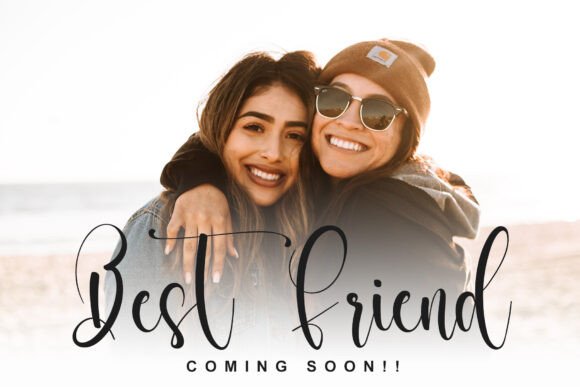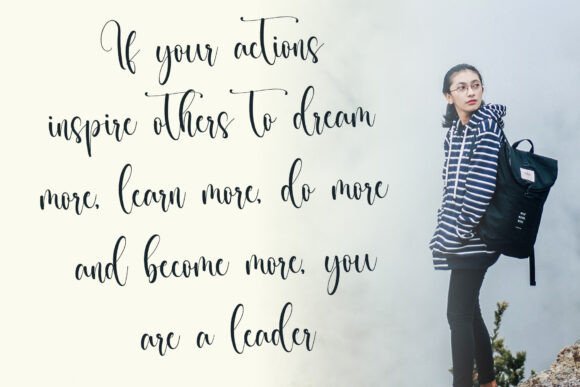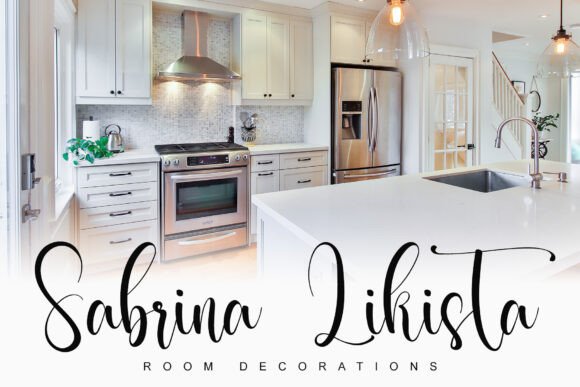
Brittany Writing Font
Brittany Writing is a font that exudes class, combining the beauty of script handwriting with a bold and timeless vintage touch. With its fluid strokes, graceful curves, and dynamic flow, this font is perfect for creating a sophisticated yet powerful impression. Whether you need a stylish signature, branding design, or nostalgic vintage aesthetics, Realistic Vintage delivers elegance and uniqueness effortlessly.